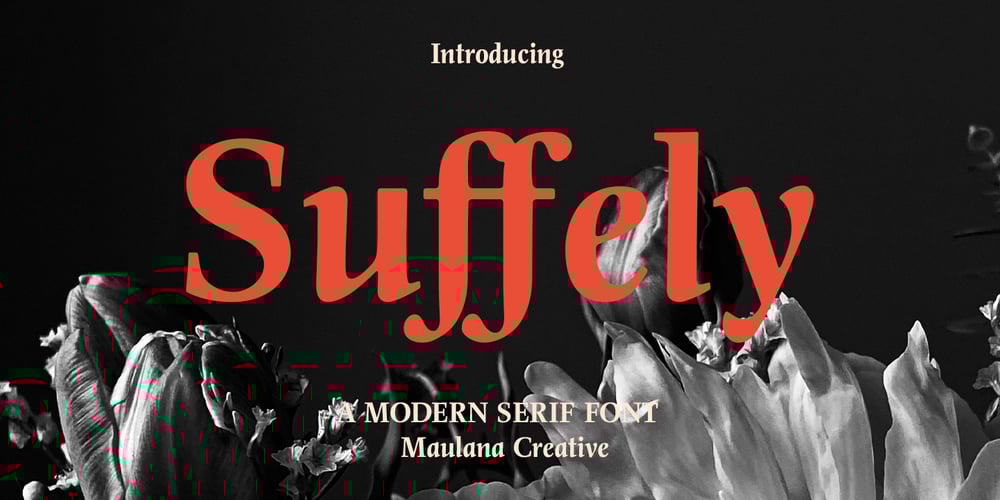
MC Suffely Font Family was designed by Gilang Maulana and published by Maulana Creative. MC Suffely contains 1 styles and family package options. Suffely a modern display serif font. With medium low contrast stroke, fun character with a bit of ligatures and alternates. To give you an extra creative work. Suffely font support multilingual more than 100+ language. This font is good for logo design, Social media, Movie Titles, Books Titles, a short text even a long text letter and good for your secondary text font with sans or serif. Make a stunning work with Suffely font. Cheers, Maulana Creative